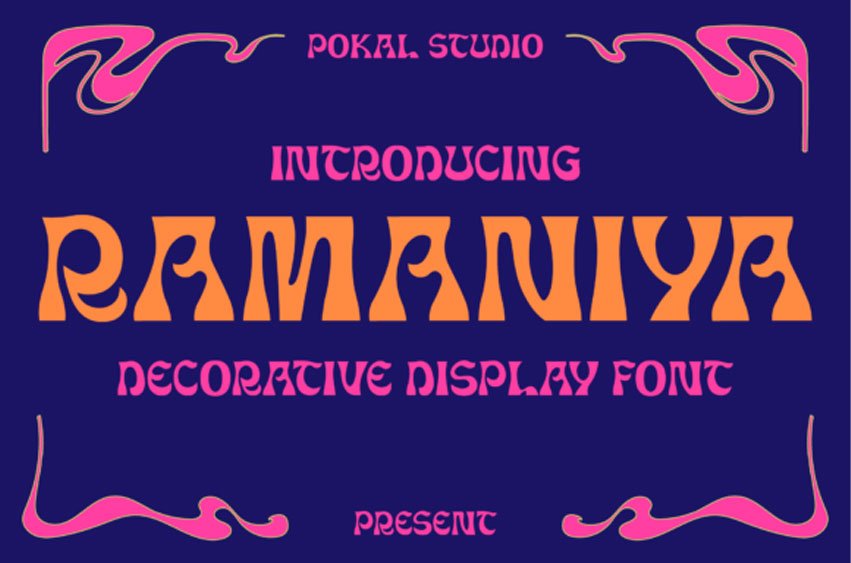
Ramaniya Font Step into a dreamy cascade of curves with Ramaniya, a decorative psychedelic font rooted in Art Nouveau elegance and vintage retro flair.
Designed for bold poster layouts and eye-catching headlines, Ramaniya’s wavy, organic shapes channel the psychedelic spirit of the 60s & 70s while retaining refined ornamental details.
Whether you’re crafting festival posters, retro branding, album covers, or signature headlines, Ramaniya infuses each design with cosmic energy, flowing lines, and stylistic charm. Its fluid forms and decorative touches make it a standout for any creative project that demands both visual impact and timeless beauty.
Perfect For:
– Psychedelic posters & event flyers
– Retro branding & packaging
– Art Nouveau-inspired logos & titles
– Bold headlines & display typography
– Album covers, merch & editorial spreads
Let Ramaniya transport your designs on a wavy, artful journey — where psychedelic meets vintage elegance and every headline becomes a visual trip.